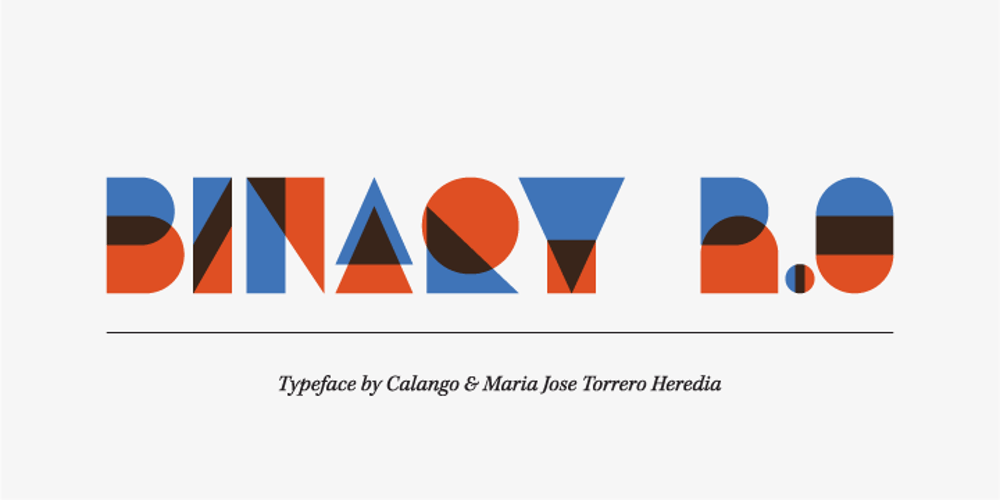
Binary 2.0
Binary 2.0 font
Binary 2.0 Font Family was designed by Maria Jose Torrero Heredia, Jeroen Krielaars and published by Calango. Binary 2.0 contains 5 styles and family package options. This time Calango teamed up with Maria Jose Torrero Heredia from Mexico to create the latest addition to the typeface collection, Binary 2.0. Binary 2.0 includes 105 glyphs and comes in two flavors, a bi-colored filled version (which is created by combining Binary Top & Binary Bottom) and an outlined version that has 5 weights. Use Binary’s 6 styles to create an endless mix of layered executions.